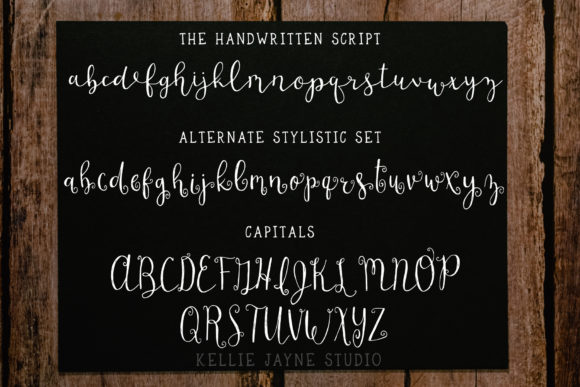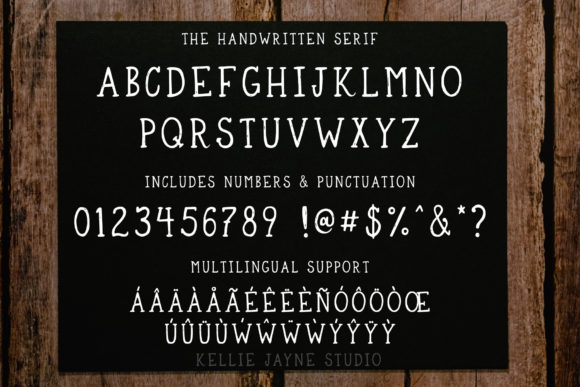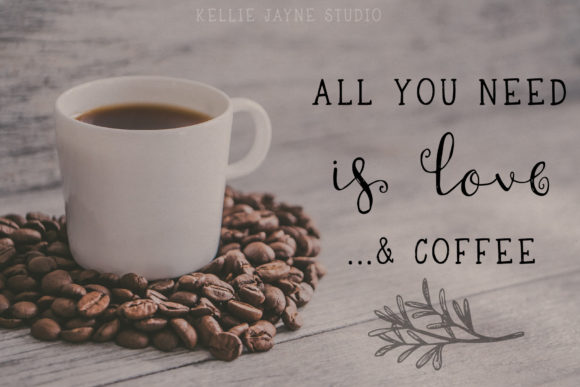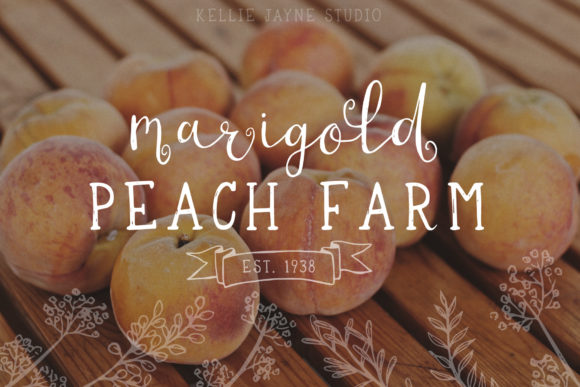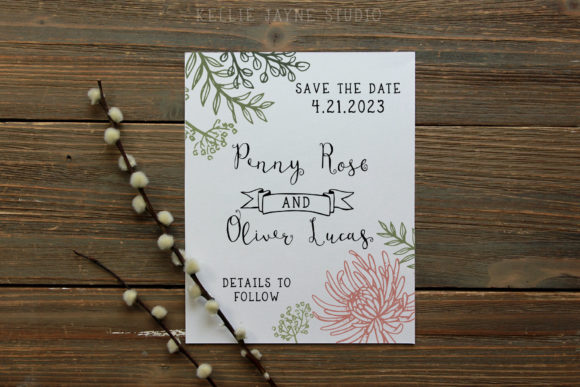
Whisking Up the Perfect Design
As a designer, there’s nothing quite like that moment when a new project sparks an idea. It’s like stumbling upon a secret recipe that brings all the flavors together in perfect harmony. And that’s exactly what happened when I discovered the Blueberry Muffin Font duo – a match made in heaven for any design project.
Combining the whimsy of a handwritten script with the rugged charm of a serif font, Blueberry Muffin Font is the ultimate tool for designers looking to add a touch of personality to their work. From rustic signs to vintage-inspired typography, this font duo is the perfect accompaniment to any creative endeavor. Whether you’re crafting a brand identity or designing a website, Blueberry Muffin Font is sure to bring a unique and captivating flair to your designs.
Blueberry Muffin Font Key Features
- Font Family: Blueberry Muffin
- Unique Characteristics: This font features a whimsical, hand-drawn design with a mix of serif and script elements, making it perfect for creating a warm and inviting atmosphere in designs.
- Font Style: Script, Display
Blueberry Muffin Font Review
First off, I have to say that I was initially drawn to the Blueberry Muffin Font for its charming and playful vibe ✨. The font’s cursive script and rounded edges give it a friendly and approachable feel that’s perfect for baking-related businesses or food blogs.
Some of the font’s strengths include:
- Cute and whimsical aesthetic ✨
- Easy to read and understand ✨
- Works well for short blocks of text ✨
However, there are a few limitations to consider ⚠️:
- The font may be too cursive for some users, which can make it difficult to read in certain contexts ⚠️
- The font’s charm can also make it feel a bit juvenile or over-the-top in some settings ⚠️
Overall, the Blueberry Muffin Font is a solid choice for projects that need a playful and approachable vibe. While it may not be the best choice for more formal or serious projects, it’s a great option for businesses or individuals who want to add a touch of whimsy to their brand.
For the most effective use of the Blueberry Muffin Font, pair it with bold, playful graphics and bright colors. This font is ideal for designing social media graphics, advertisements, and branding materials for bakeries, cafes, or food-related businesses.
Alternative Fonts to Blueberry Muffin Font
Pacifico Font is a beautiful, elegant script font ideal for wedding invitations, branding, and packaging design. It features a flowing, handwritten style with a touch of sophistication.
Compared to Blueberry Muffin Font, Pacifico Font has a more refined and polished look, making it suitable for high-end designs. While Blueberry Muffin Font has a playful and whimsical feel, Pacifico Font exudes a sense of luxury and sophistication.
Great Vibes Font is a modern, elegant script font that works well for headings, titles, and branding. It features a flowing, handwritten style with a touch of playfulness.
Compared to Blueberry Muffin Font, Great Vibes Font has a more dynamic and energetic feel, making it suitable for designs that require a sense of movement and excitement. While Blueberry Muffin Font has a more subtle and understated look, Great Vibes Font is more attention-grabbing and vibrant.
Alex Brush Font is a beautiful, elegant script font ideal for headings, titles, and branding. It features a flowing, handwritten style with a touch of sophistication and elegance.
Compared to Blueberry Muffin Font, Alex Brush Font has a more refined and polished look, making it suitable for high-end designs. While Blueberry Muffin Font has a more playful and whimsical feel, Alex Brush Font exudes a sense of luxury and sophistication.